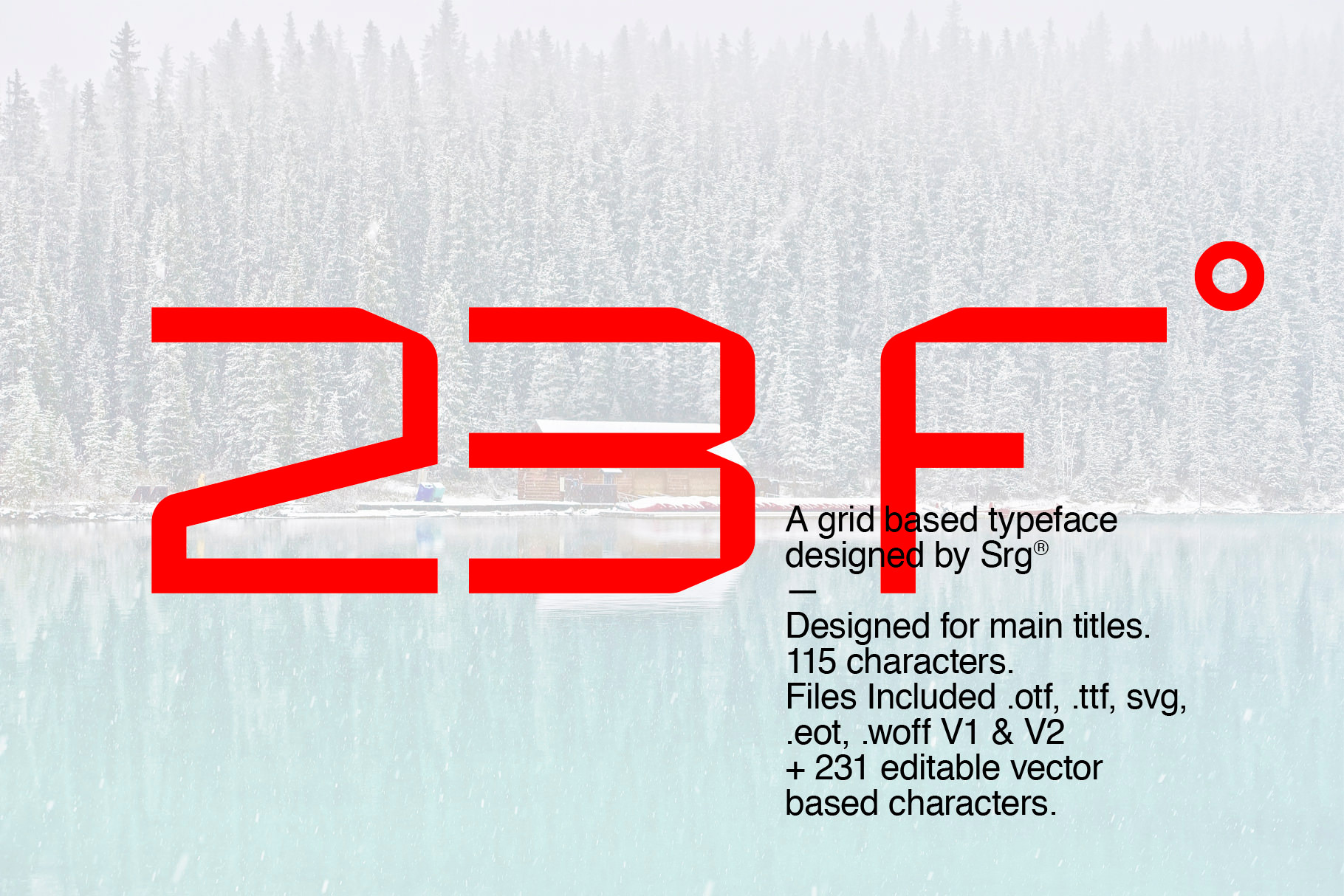
23F-Grid based font
23F-Grid based vector font
· Minimal vector linear font designed with a futurist and modernist feeling, better suited for short text and titles.